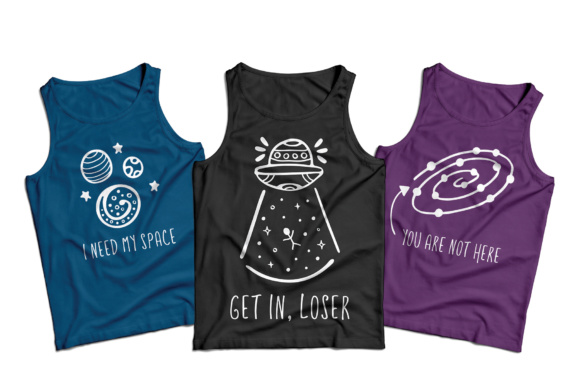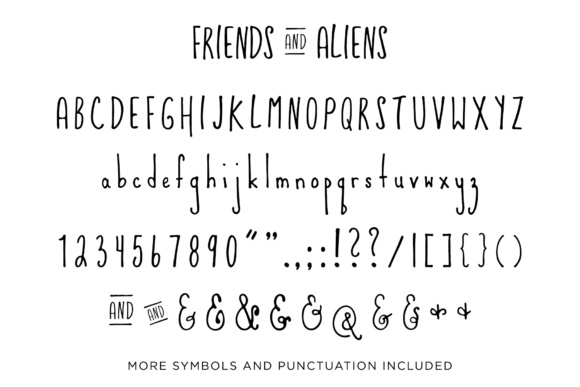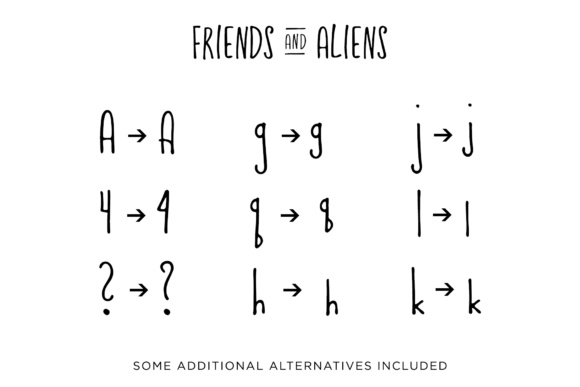
Introduction to Friends and Aliens Font
Friends and Aliens is a cool, nostalgic alien-themed font, perfect for use in thematic designs.
This font comes with symbols that can add some out of this world fun to your creative projects .
Key Features of Friends and Aliens Font
Why Choose Friends and Aliens Font?